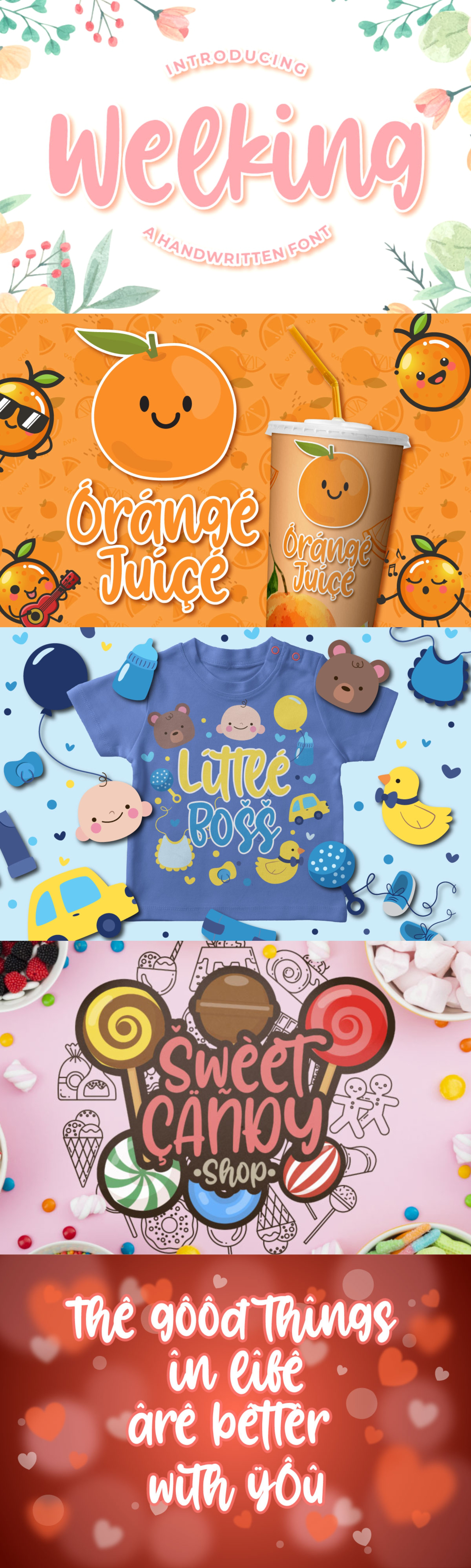
Welking - Handwritten Font
Introducing Welking - Handwritten Font
Welking is the perfect font for all your fun designs. The main font file is equipped with ordinary characters. Everything is made with the funny brush. So you can be sure they will work well together! It is suitable for you to use in making t-shirt design, quote, label, packaging, logo type, or long writing. Because we have compiled kerning and matrices that are tailored to your needs.
Welking features: